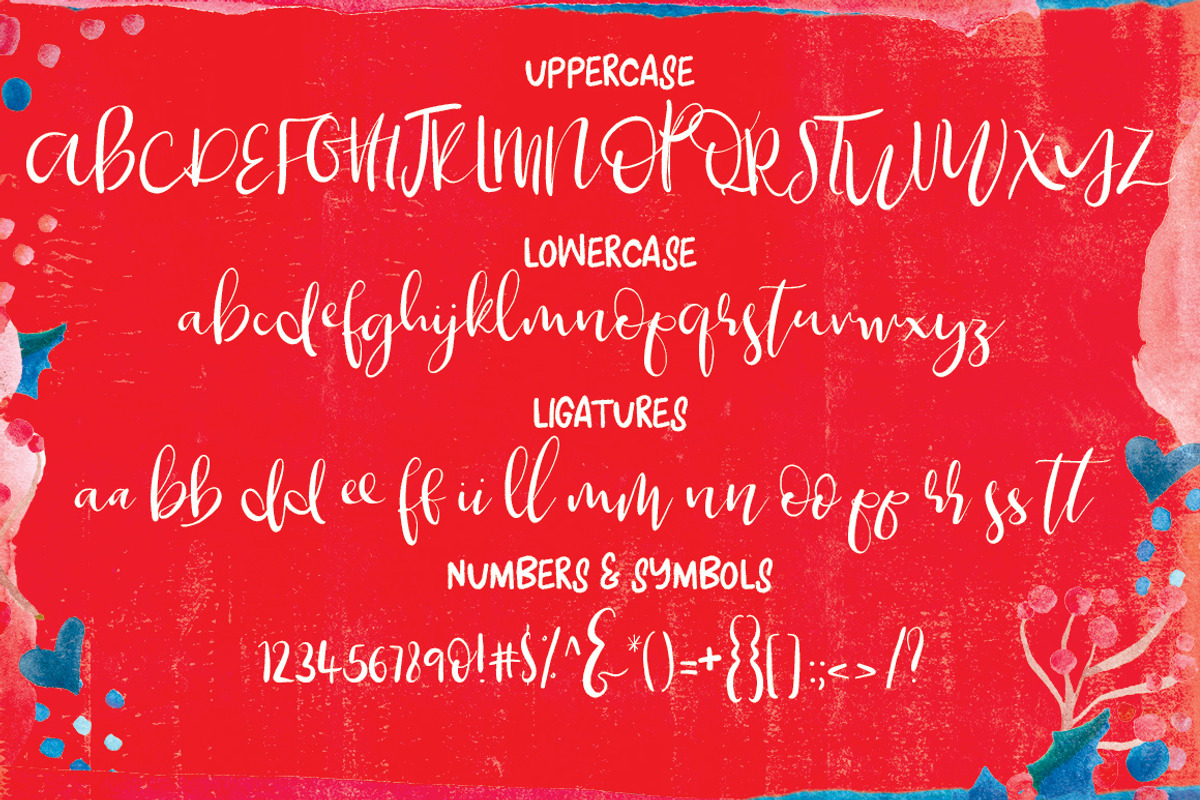
Boom & Farrow Script Font
Boom & Farrow Script Font by Creativeqube Design is a font selected for branding, posters, packaging, typography.
Why Boom & Farrow Script Font is worth a look
Boom & Farrow Script Font by Creativeqube Design fits naturally into Branding, posters, packaging, typography.